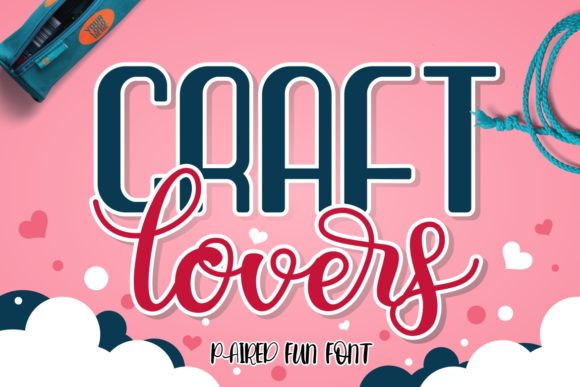
Craft Lovers Font
Introducing Craft Lovers Font, the enchanting script and sans paired font duo that will ignite your creativity and elevate your projects to new heights!
Step into a world of limitless possibilities with Craft Lovers, the font family designed to inspire your crafting dreams. This charming script, meticulously crafted by the talented hands of HansCo, exudes a touch of whimsy and elegance that will captivate your audience.
With its graceful curves and playful strokes, Craft Lovers is the perfect companion for your handmade creations. Its versatile nature makes it an ideal choice for a wide range of projects, from heartwarming invitations to eye-catching posters. Unleash your inner artist and let Craft Lovers transform your designs into masterpieces that will leave a lasting impression.
But wait, there's more! Craft Lovers doesn't stop at its captivating script. It comes paired with a sleek and modern sans font, offering you the perfect complement to your designs. Together, they create a harmonious blend that will elevate your projects to the next level.
So, why settle for ordinary when you can have extraordinary? Download Craft Lovers Font today and embark on a creative journey filled with endless possibilities. Let its enchanting script ignite your imagination and its modern sans partner bring your visions to life. Make your designs stand out, create unforgettable memories, and spread joy through the power of words with Craft Lovers Font!